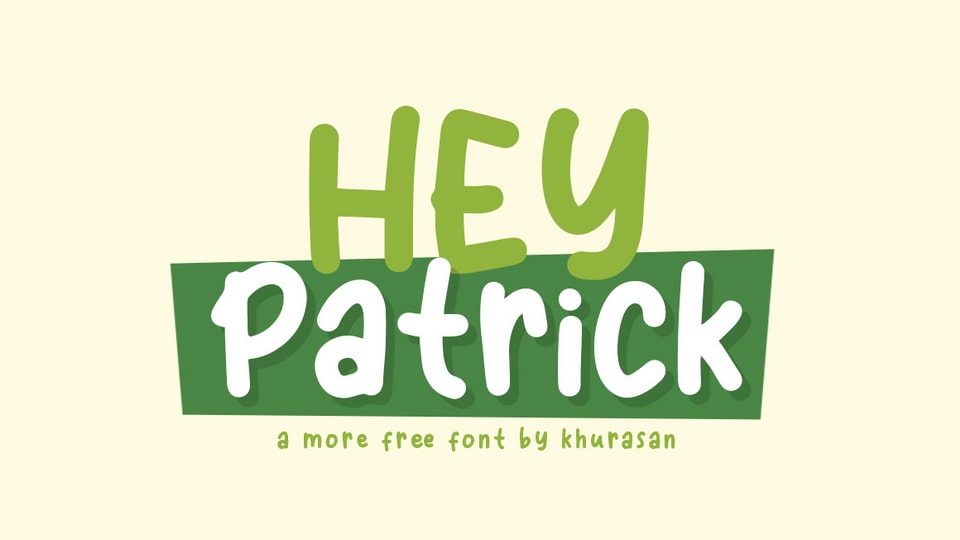
Download Hey Patrick font, a playful and quirky handwritten typeface. With its cheerful look Hey Patrick font is perfect for posters, logos, magazines, book covers, banners, and many more.